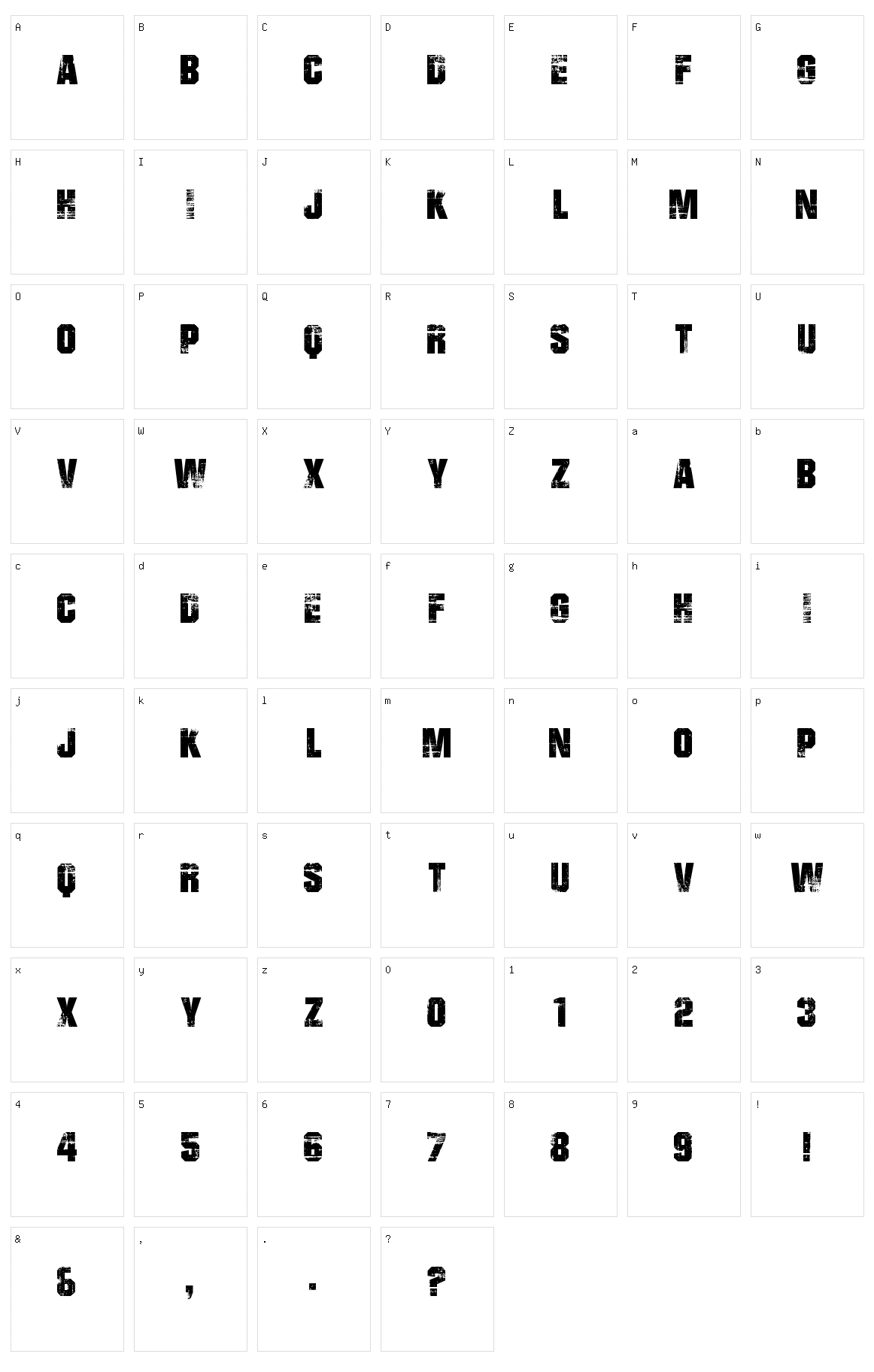
The free font Bad Grunge is carefully designed by Jayde Garrow, showcasing a thoughtful balance of creativity and usability and falls under the Destroy font style. When you download the ZIP file, it contains only 63.34 KB of font files, making it lightweight and quick to download. Please review the license details below to understand permitted usage and distribution rights. If license information is not available, we recommend using this font for personal projects only or contacting the author directly for commercial usage permissions.